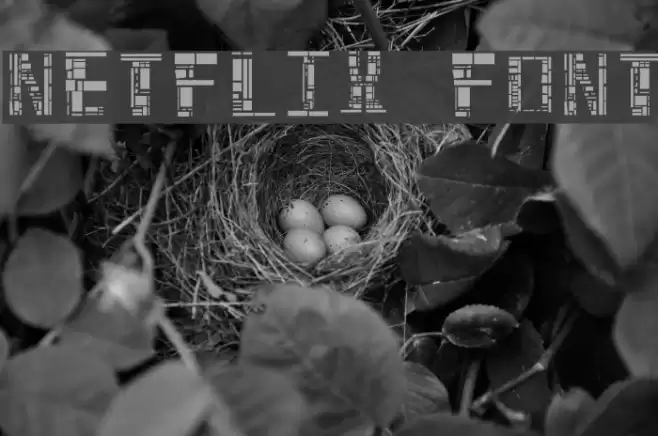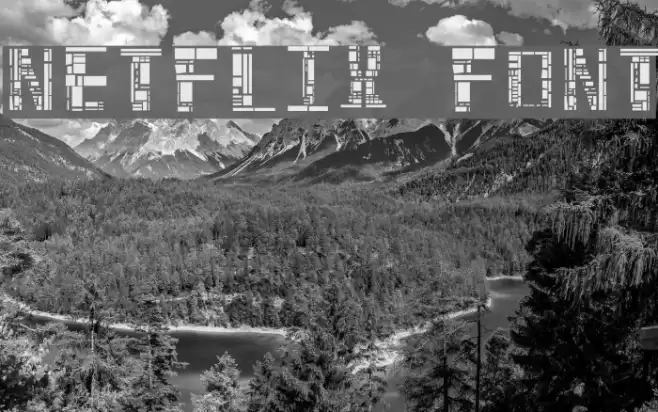
Netflix Font Font
Netflix Font Description
This font features a unique, digital-inspired design with a fragmented, pixelated appearance. Each character is composed of blocky segments that create a futuristic and technological aesthetic. The uppercase and lowercase letters maintain a consistent style, with sharp angles and a geometric structure. The numbers and special characters follow the same design principles, ensuring uniformity across the font. This style is reminiscent of early digital displays and evokes a sense of modernity and innovation.
A digital, pixelated font with a futuristic and technological look from Distorted Eroded fonts.
- Proposed Projects: Ideal for tech-related branding, video game graphics, digital art projects, and modern advertising campaigns.
- Use Case: Logos, Headlines, Digital Art